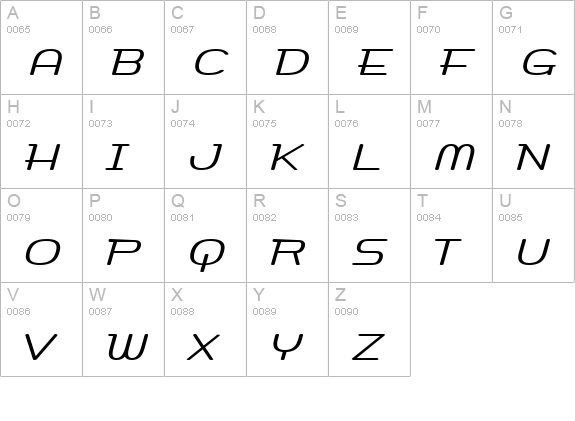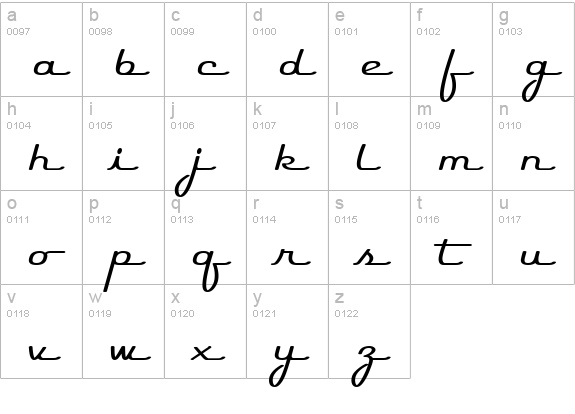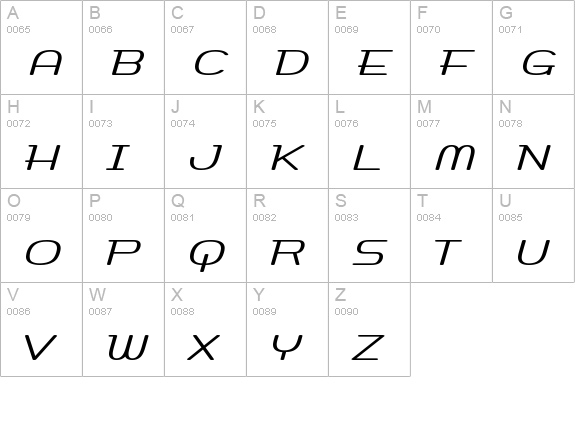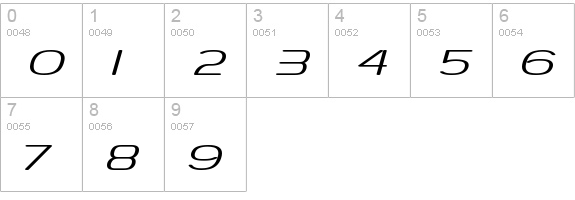
Introducing Rocket Script font, a dynamic and modern typeface that will elevate your design projects to new heights! With its sleek lines and futuristic aesthetic, Rocket Script is perfect for creating eye-catching logos, branding materials, posters, and more. This versatile font exudes a sense of energy and excitement, making it ideal for projects that demand a bold and striking look. And the best part? Rocket Script font is completely free to download at FontsMarket.com! That's right, you can access this impressive font at no cost, allowing you to unleash your creativity without breaking the bank. Don't miss out on this amazing opportunity to add Rocket Script to your font collection today!